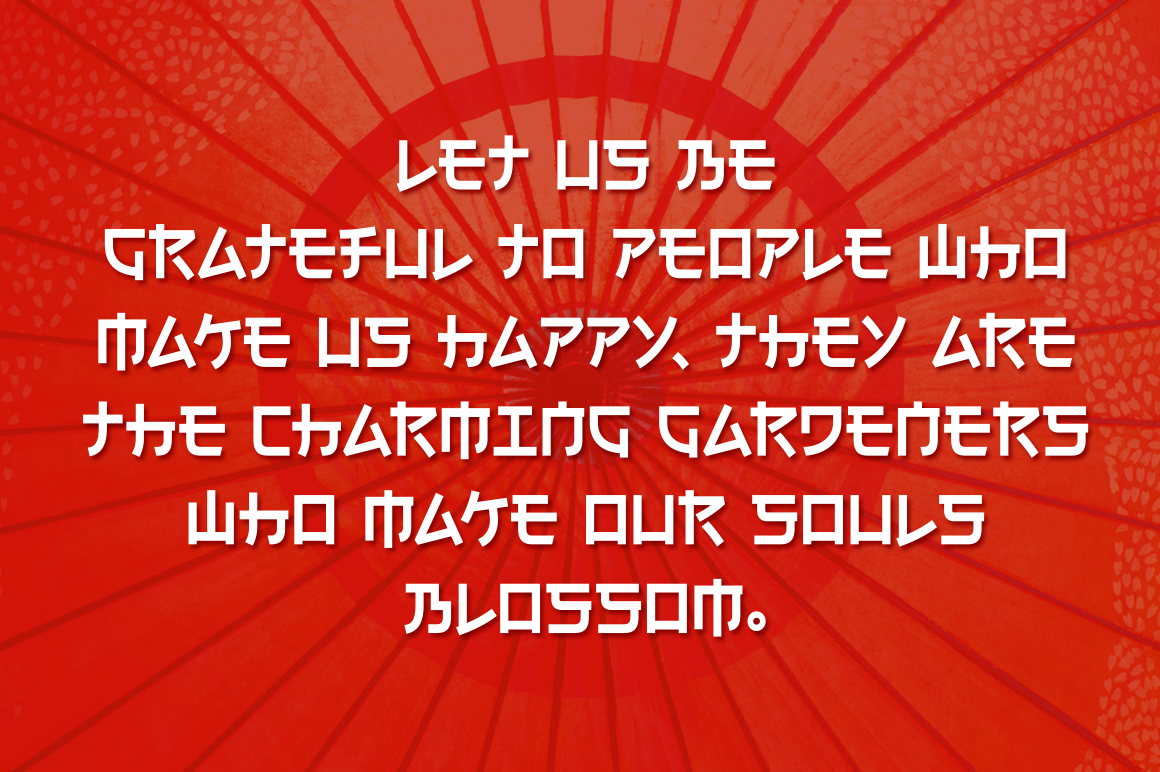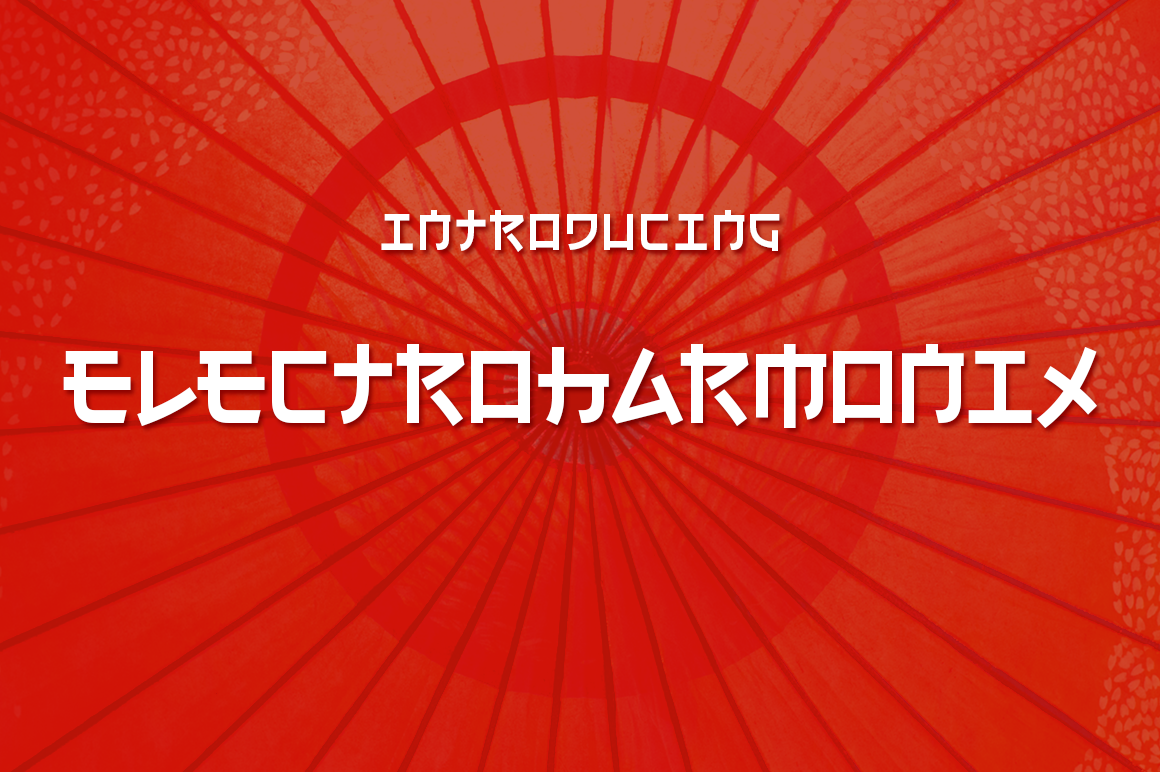
Electroharmonix
About Electroharmonix Font
Electroharmonix is a stunning and highly graphical decorative font, perfect for a wide range of thematic designs! This free, decorative font was crafted by the talent at Typodermic.